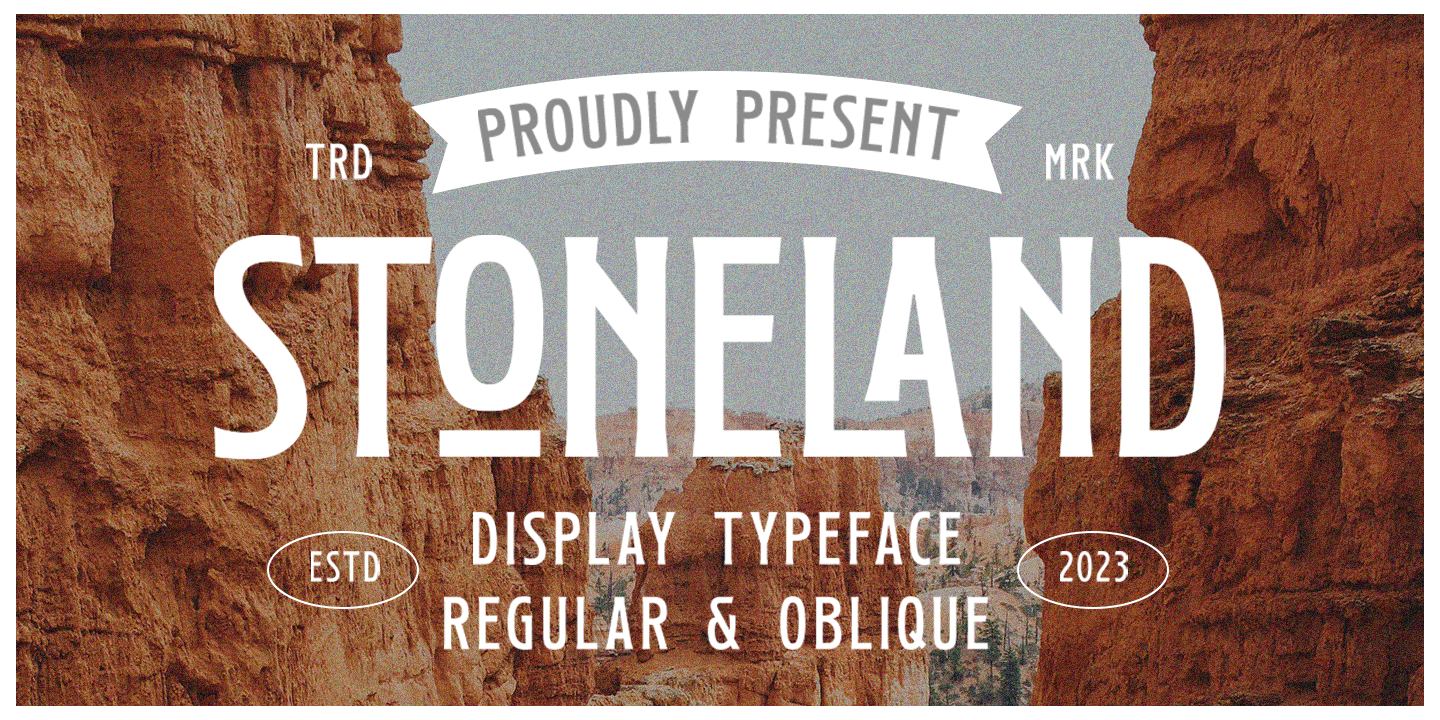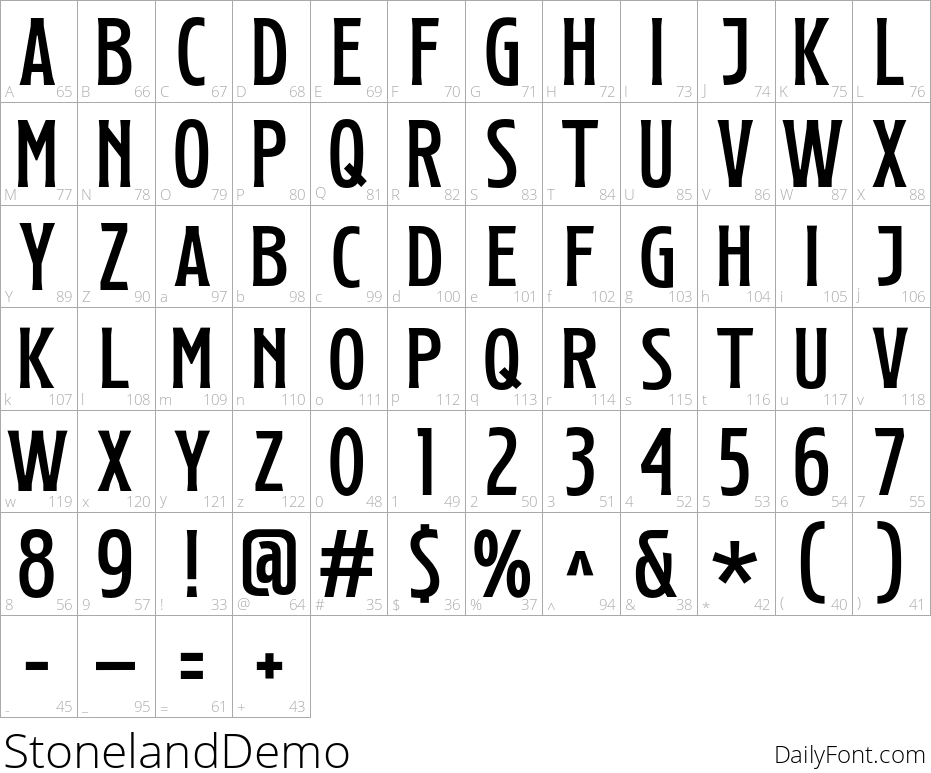
Stoneland
Meet Stoneland, a stunning display font built to grab attention. With an array of ligatures, Stoneland delivers fluid, distinctive letterforms that elevate headlines, logos, and branding. Its strong, bold personality cuts through page noise, making a lasting impression in both digital and print media. Designed for impact, Stoneland is ideal for project heroes like posters, editorial spreads, t-shirt typography, and striking packaging where typography must speak clearly.
Versatility is at the core of Stoneland. Use it across a wide range of design projects—from bold logos and brand systems to elegant invitations and premium labels. It works beautifully in magazines, books, greeting and wedding cards, fashion campaigns, makeup branding, stationery suites, and advertising materials. The font’s ligatures provide stylistic options that help you craft unique, memorable headlines and callouts.
Stoneland is the go-to choice for designers seeking a confident, high-impact display font that performs across print and digital media. Explore its extensive ligature set to create cohesive branding, striking packaging, and unforgettable campaigns.